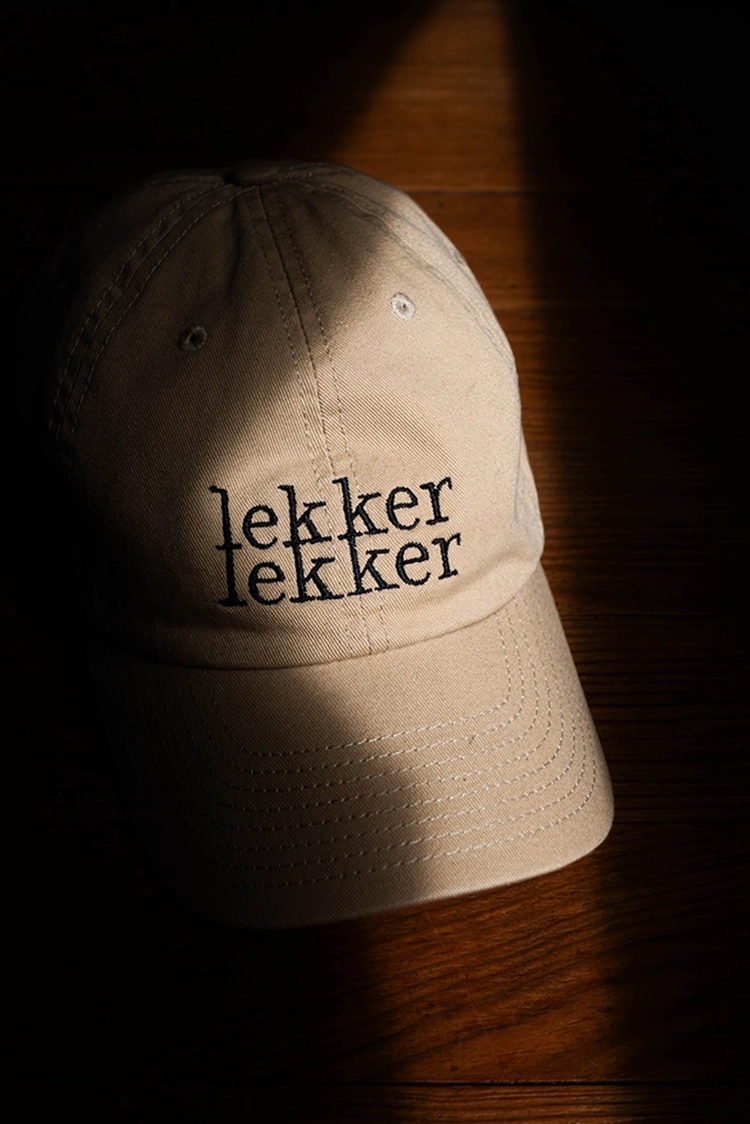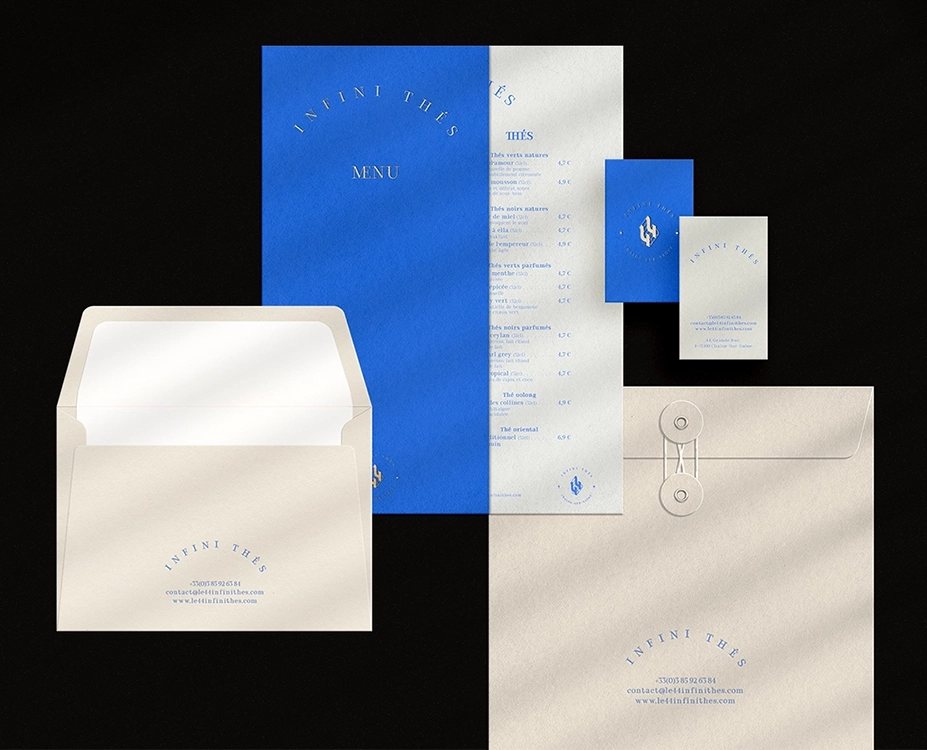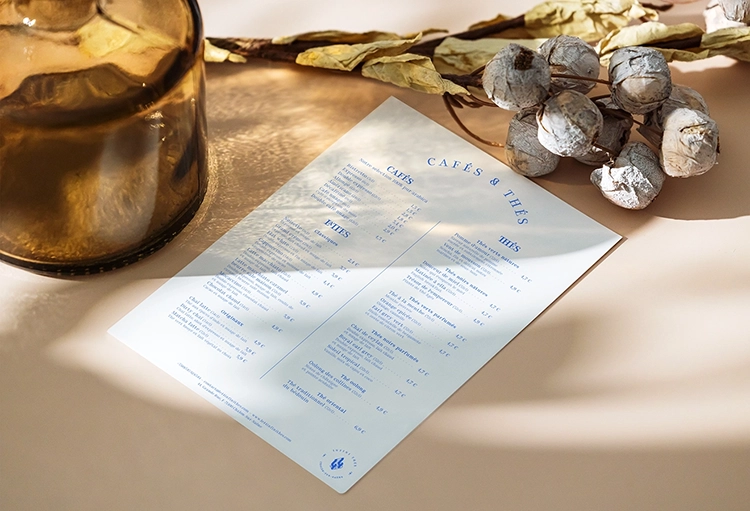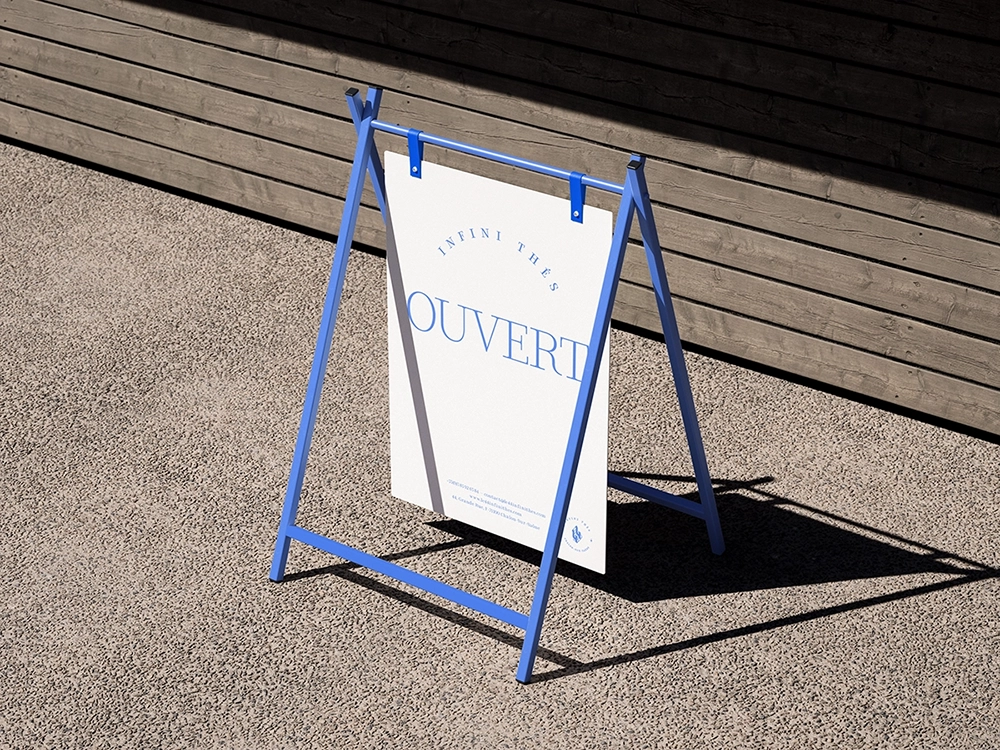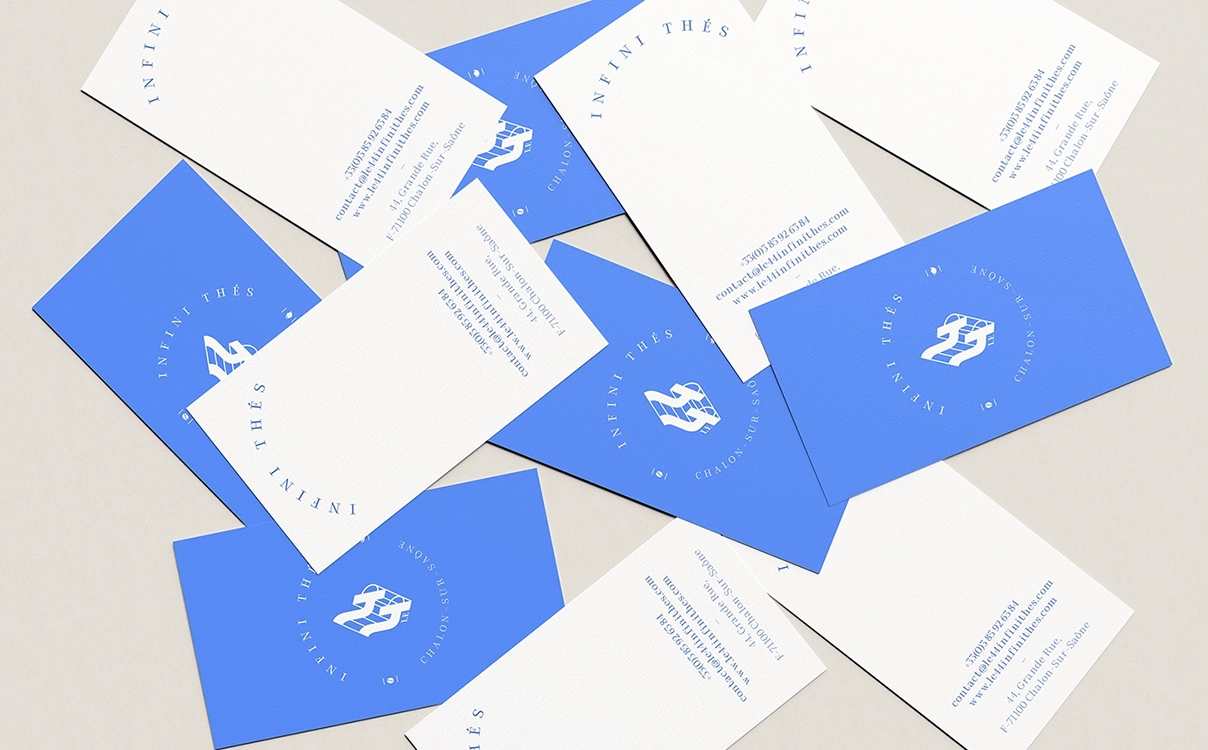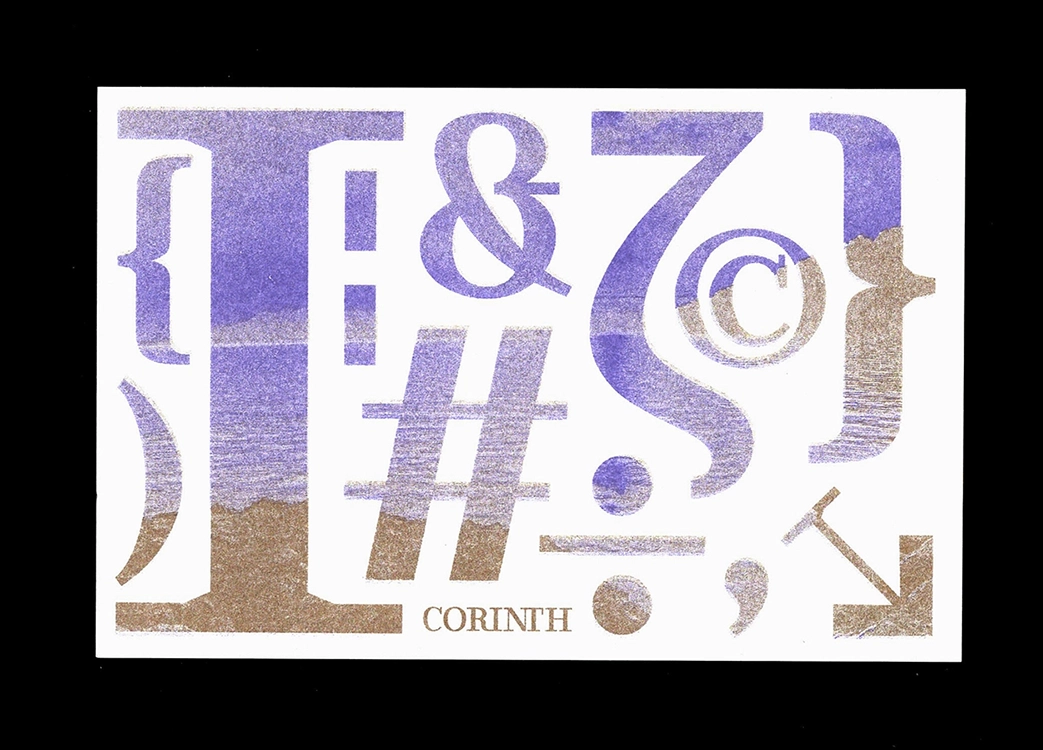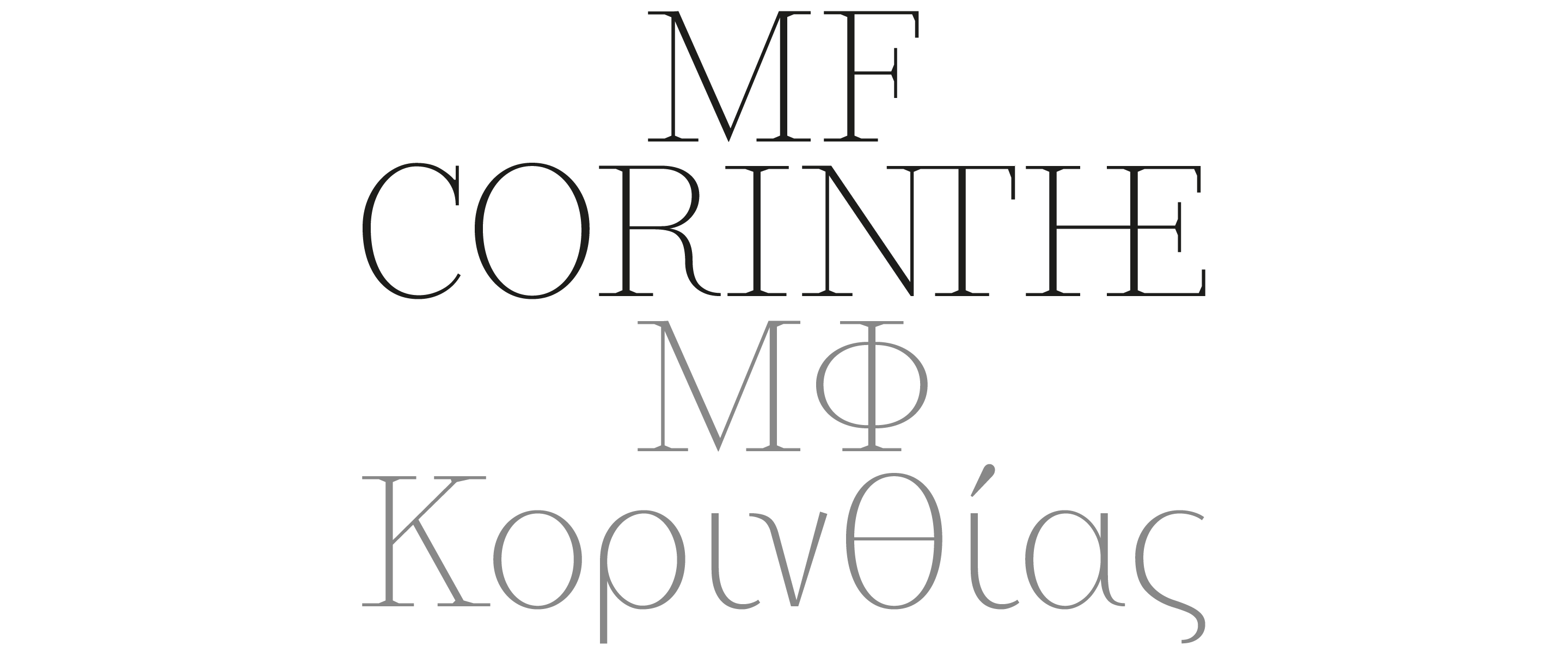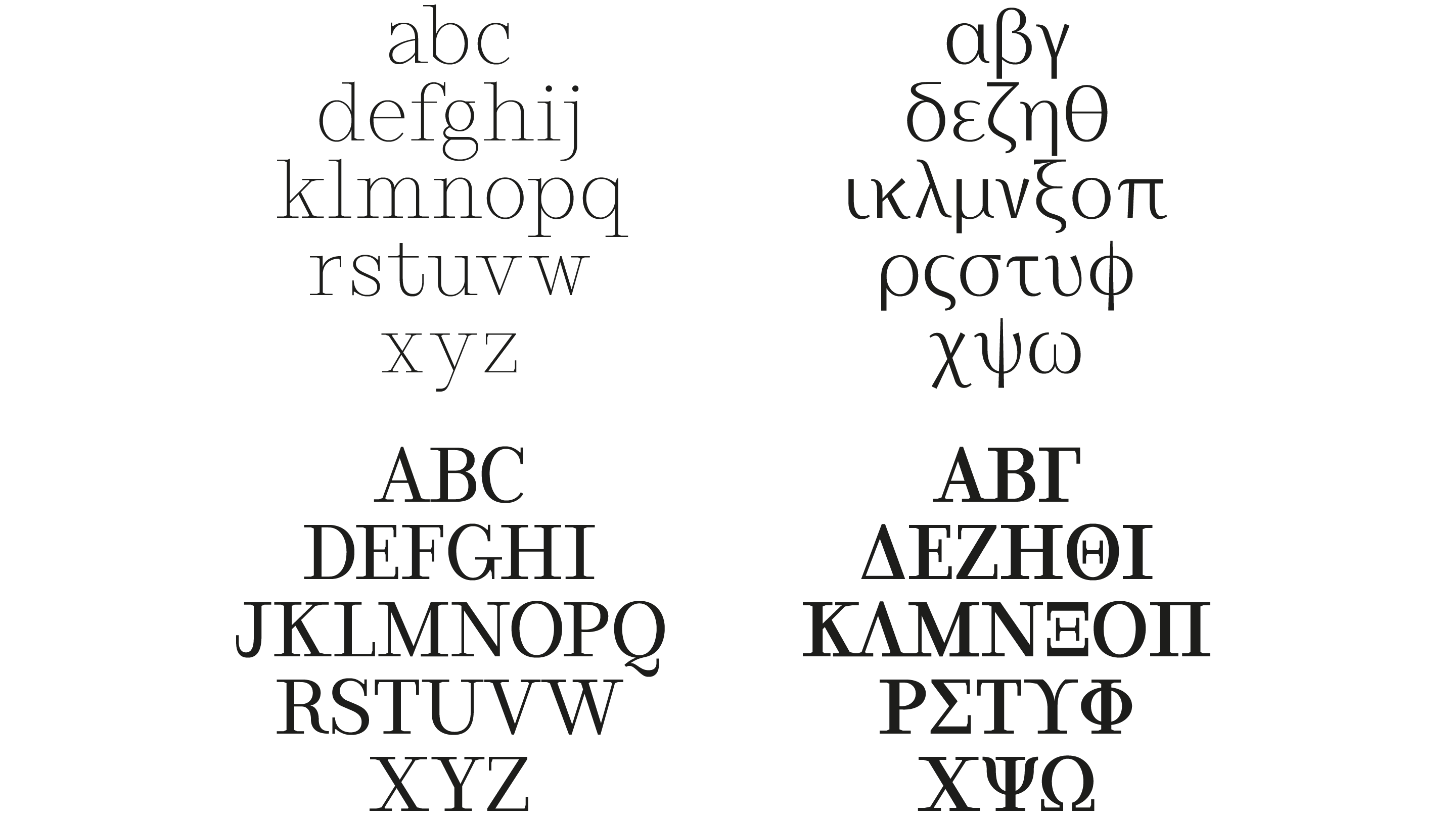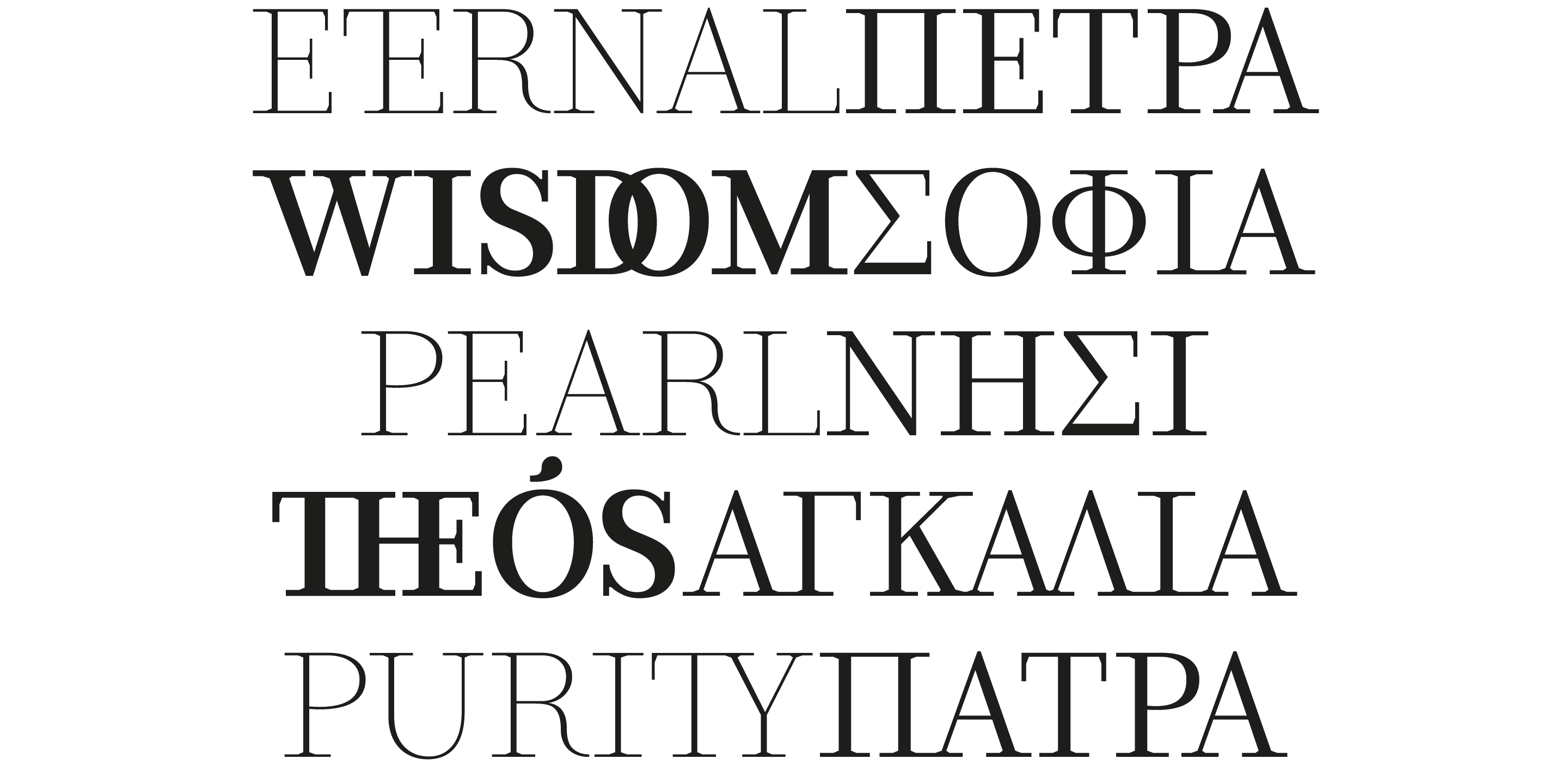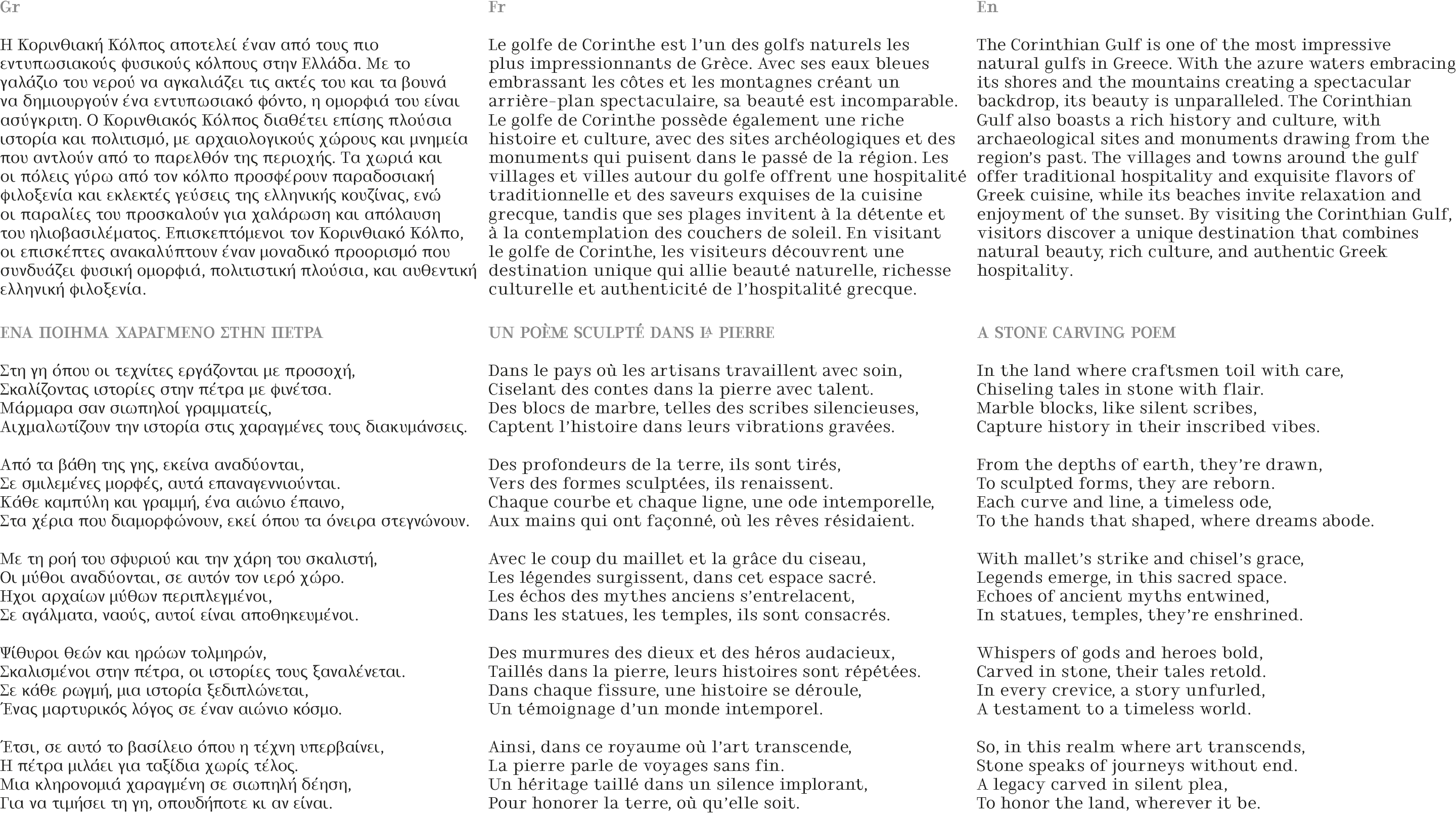
Corinthe
An exquisite serif typeface meticulously crafted to echo the grandeur of ancient Greek engravings and the enduring elegance of lapidary inscriptions. Rooted in its earliest inspirations, Corinthe has gracefully transformed into a modern typographic masterpiece, enriched by a tapestry of diverse influences. The delicate dance between its serifs and curves serves as a reverent tribute to the ingenuity of humanity and the enduring legacy of its tools.
Font design
Romain Marc
Font engineering
Milletype Foundry
Ligatures
MF Corinthe typeface specimen, editorial-style composition. Corinthe alphabet featuring Latin and Greek characters, multilingual type design. MF Corinthe font weight variations, typographic rhythm and contrast. MF Corinthe poetry engraved in stone, sculptural and serif-based typography. Ligature showcase from MF Corinthe, editorial ligature design.